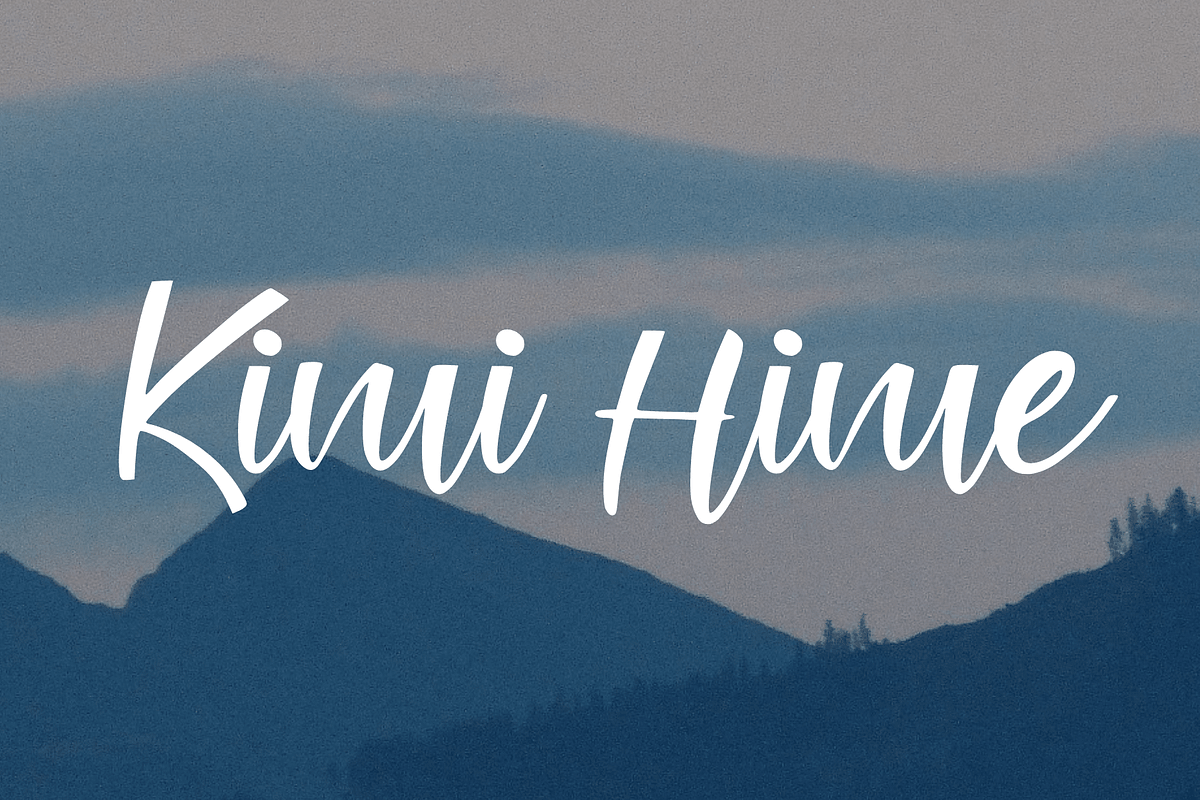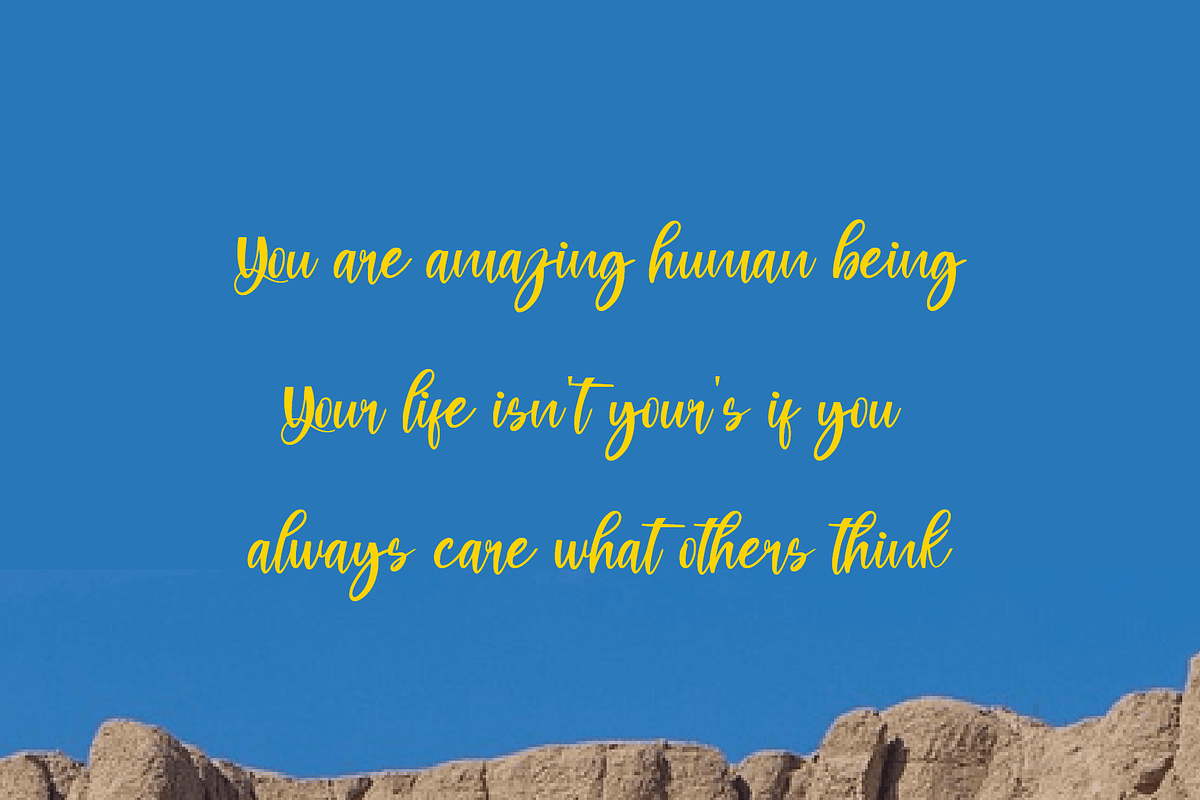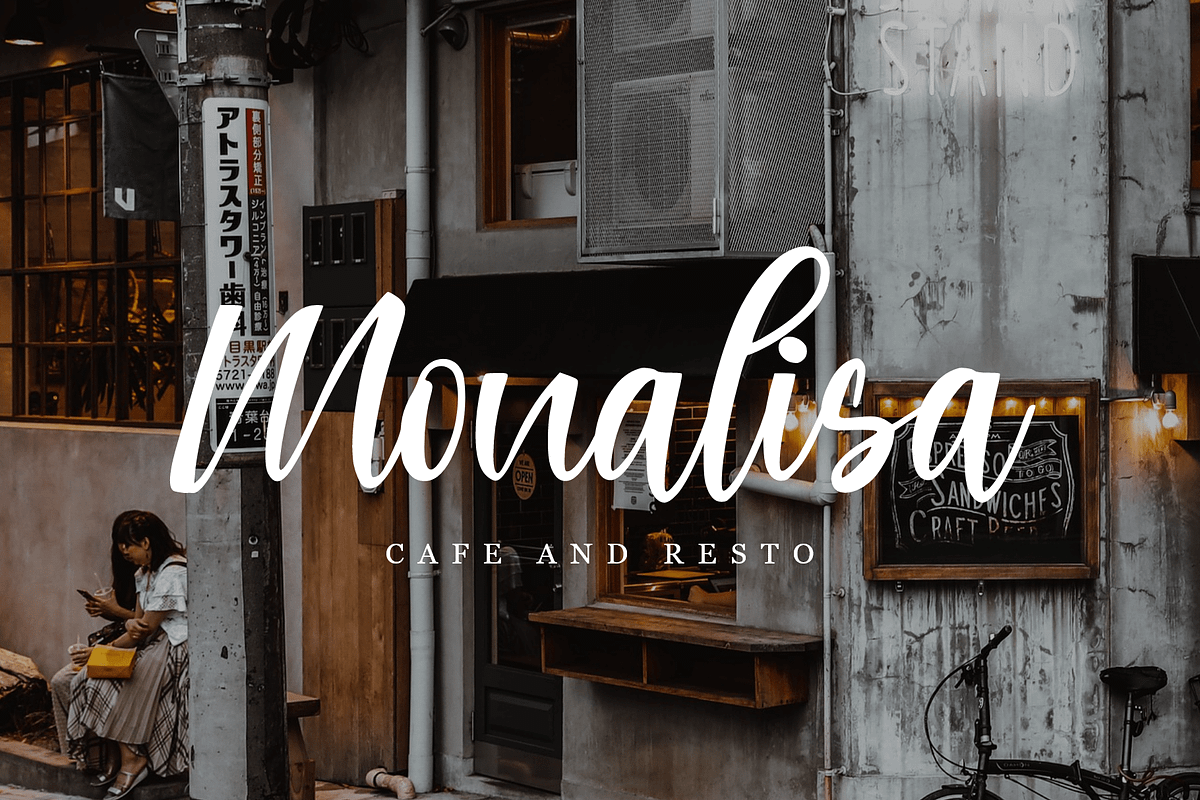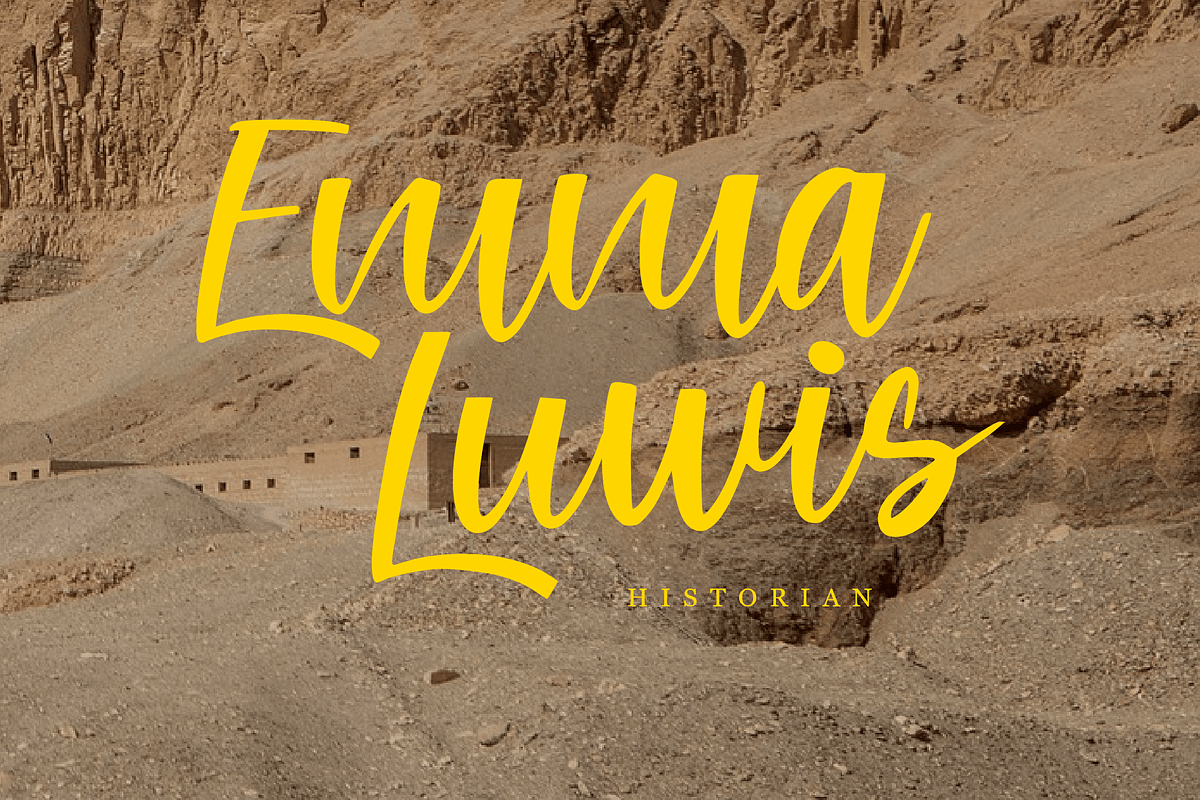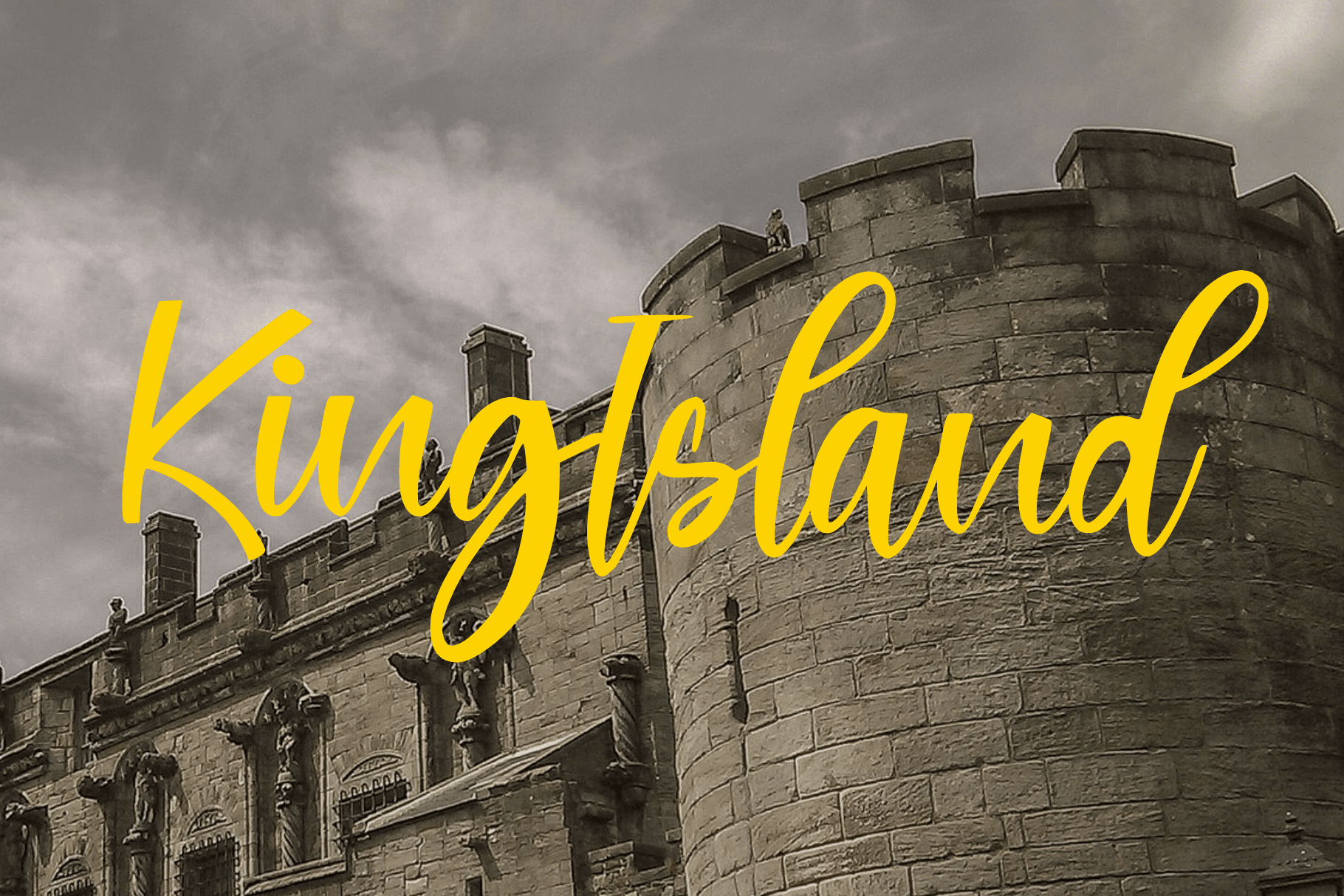
KingIsLand: Unique Handwriting Font
King Is Land: Unique Handwriting Font
Introducing King Is Land, a distinctive handwriting font that combines uniqueness and style. This font features a modern, flowing style and a variety of unique character forms, perfect for branding, logos, and more.
Distinctive Handwriting Style: King Is Land offers a modern, flowing handwriting style that adds uniqueness and style to any project.
Wide Range of Applications: Ideal for branding, logos, web design, and more. Add a unique touch to your designs with King Is Land.
Variety of Characters: Comes with a variety of unique character forms, adding depth and versatility to your design projects.
High Quality: Meticulously crafted to ensure high readability and beautiful aesthetics.